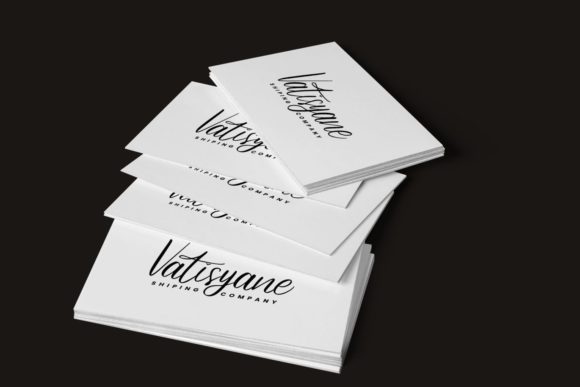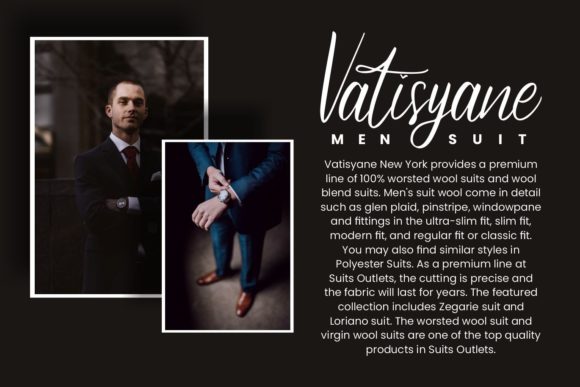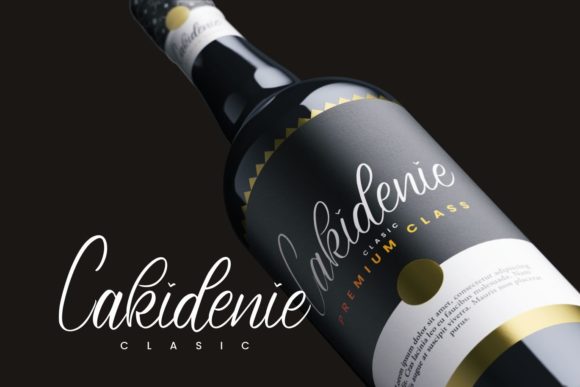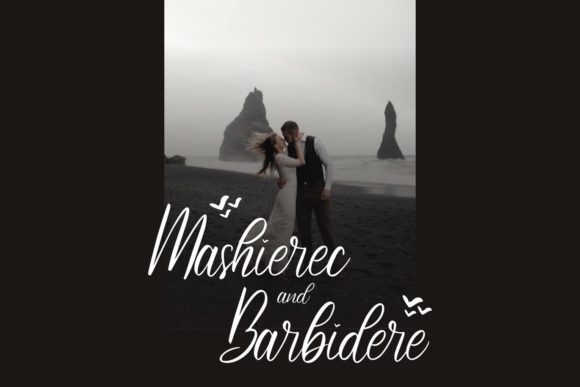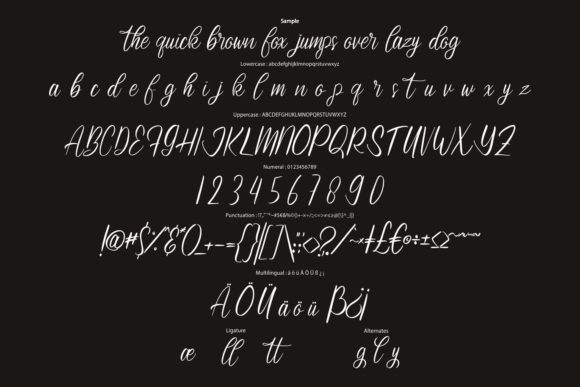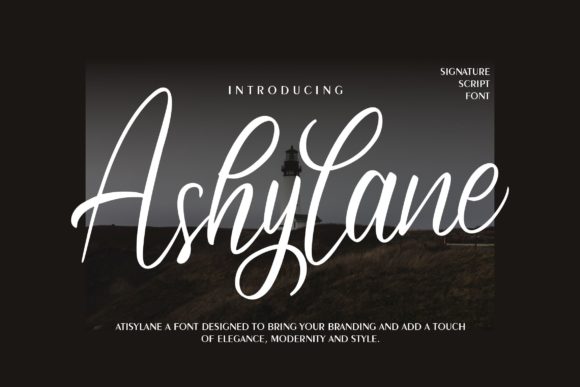
The Charming Ashylane Script Font: A Designer’s Delight
I still remember the time I was working on a wedding invitation project, and my client specifically asked for a font that exuded elegance and charm. I scoured the internet, tried out numerous fonts, but none seemed to fit the bill. That’s when I stumbled upon Ashylane Script, and it instantly became my go-to choice. In this article, I’ll share my experience with this beautiful font, its features, and how to make the most of it in your designs.
An Honest Review of Ashylane Script
What I Love About Ashylane Script ✨
- 💕 Elegant and charming: Ashylane Script feels equally charming and elegant, making it perfect for designs that require a touch of sophistication.
- ✅ Versatile: It looks stunning on wedding invitations, thank you cards, quotes, greeting cards, logos, business cards, and every other design which needs a handwritten touch.
- 🌈 Beautifully crafted: The font’s intricate details and flowing curves make it a joy to work with.
- 👍 Highly legible: Despite its elegant nature, Ashylane Script remains highly legible, even at smaller font sizes.
While Ashylane Script is an excellent font, it’s not without its limitations. For instance:
- 🤔 Limited use for body text: Due to its elegant and cursive nature, Ashylane Script might not be the best choice for lengthy body text. It’s better suited for headings, titles, or short paragraphs.
- ⚠️ Not ideal for small font sizes: While legible, Ashylane Script’s intricate details might get lost at very small font sizes (below 10-12 points).
- Experiment with OpenType features, such as ligatures and stylistic alternates, to add more flair to your design.
The Story Behind Ashylane Script
Ashylane Script was designed with the intention of creating a beautiful, elegant font that captures the essence of handwritten script. The designer aimed to create a font that feels both charming and sophisticated, making it perfect for a wide range of designs.
| Font Name | Ashylane Script Font |
| Author | FannanStudio |
Q: What type of designs is Ashylane Script best suited for?
A: Ashylane Script is ideal for designs that require a touch of elegance and charm, such as wedding invitations, thank you cards, quotes, greeting cards, logos, and business cards.
Q: Can I use Ashylane Script for body text?
A: While Ashylane Script is highly legible, it’s better suited for headings, titles, or short paragraphs. For lengthy body text, consider using a more traditional serif or sans-serif font.
Q: Does Ashylane Script support OpenType features?
A: Yes, Ashylane Script supports OpenType features, such as ligatures and stylistic alternates. You can access these features in compatible design software, like Adobe Photoshop or Illustrator.